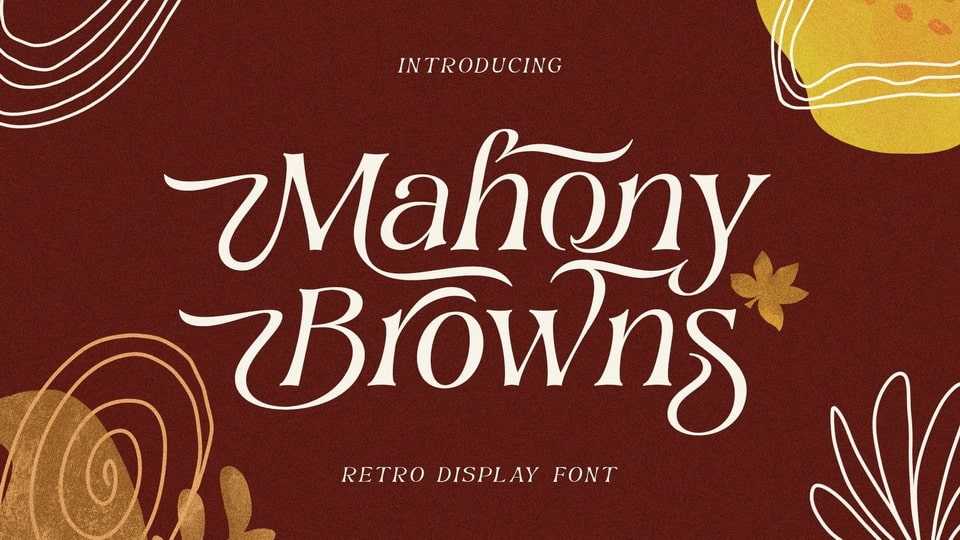
Download Mahony Browns font, an elegant typeface with a dynamic serif style. The shape and details of Mahony Browns are very smooth and flowing, creating unique and beautiful curves.